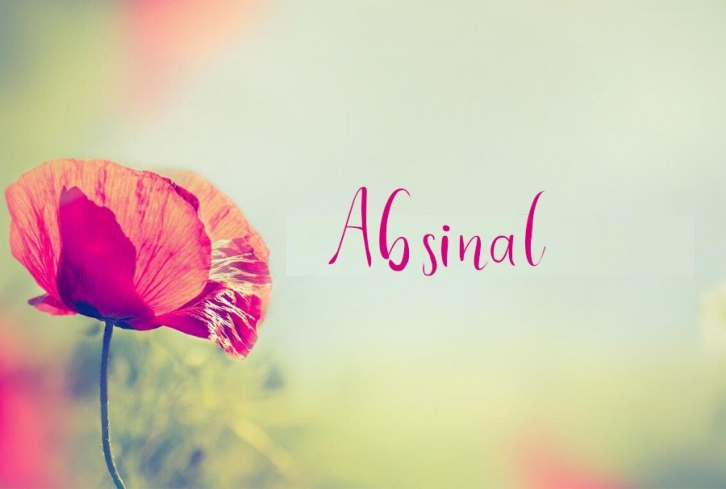
Absinal is a lovely and timeless handwritten font. It is the best choice for creating eye catching logos, branding and quotes. Every letter has a unique and beautiful touch, which will make your design come alive!